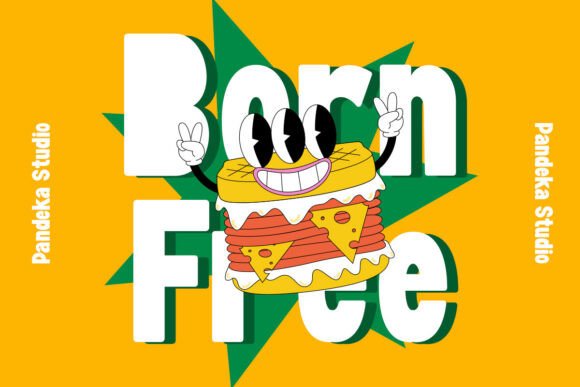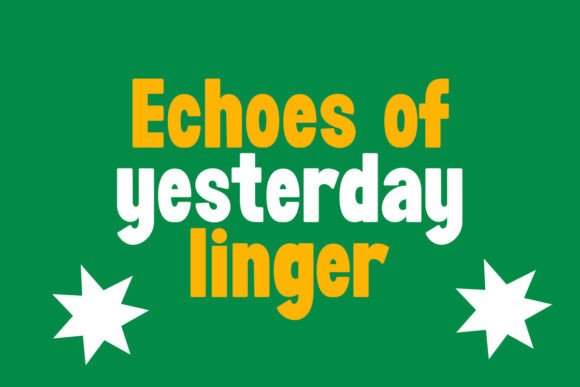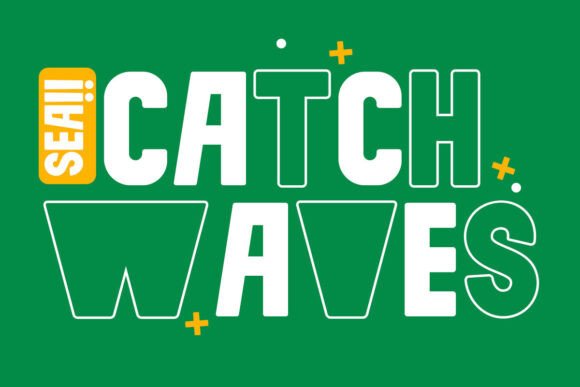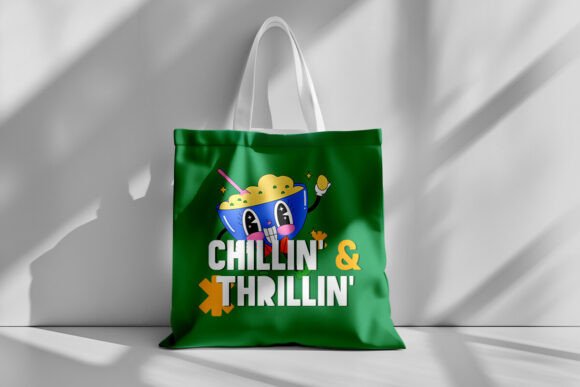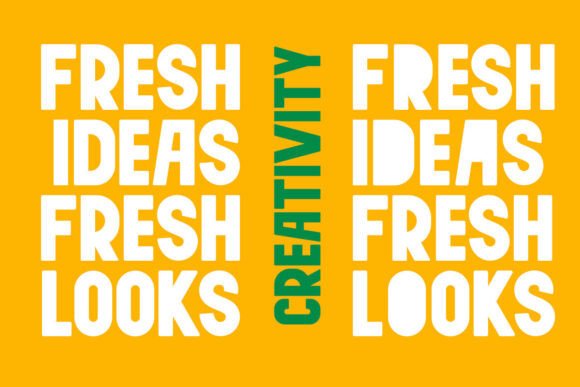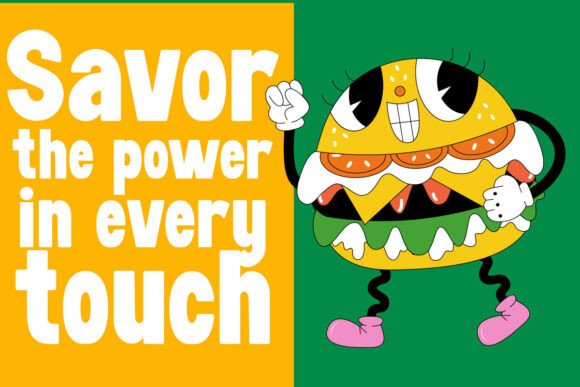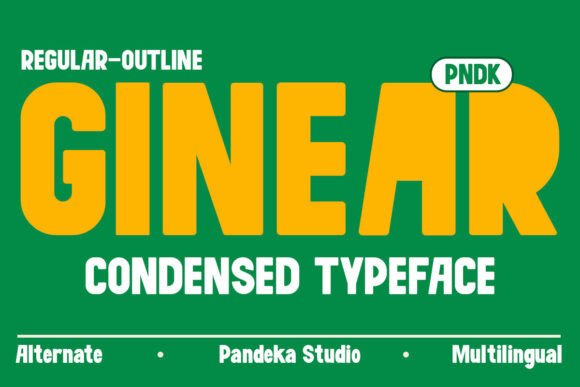
Introducing Ginear Font: The Playful and Condensed Sans-Serif Typeface You Need
Are you tired of using the same old fonts in your design projects? Look no further than Ginear, a fresh and exciting sans-serif typeface that’s sure to grab attention and bring life to your creations. With its unique blend of compact structure and cheerful vibe, Ginear is the perfect addition to any designer’s toolkit.
What Makes Ginear Special?
Ginear is a playful and condensed sans-serif typeface that’s designed to make a statement. Its 2 styles, Regular and Outline, offer a versatile range of options for designers looking to add some personality to their projects. The compact structure of Ginear makes it perfect for use in headlines, titles, and other display text, while its unique shapes and lines give it a cheerful and vibrant vibe that’s sure to engage audiences.
The Benefits of Using Ginear
So why choose Ginear for your design projects? Here are just a few benefits of using this exciting new typeface:
- Attention-grabbing: Ginear’s bold and condensed structure makes it perfect for use in headlines and titles that need to grab attention.
- Versatile: With 2 styles to choose from, Ginear can be used in a wide range of design projects, from digital media to print materials.
- Unique: Ginear’s cheerful and vibrant vibe sets it apart from other sans-serif typefaces, making it perfect for designers looking to add some personality to their work.
How to Use Ginear in Your Design Projects
Using Ginear in your design projects is easy. Here are a few tips to get you started:
- Pair it with a serif font: Ginear’s sans-serif structure makes it a great match for serif fonts, which can add a touch of elegance and sophistication to your designs.
- Use it in headlines and titles: Ginear’s bold and condensed structure makes it perfect for use in headlines and titles, where it can help grab attention and draw the eye.
- Experiment with colors: Ginear’s cheerful and vibrant vibe makes it a great match for bright and bold colors, which can help add some personality to your designs.
The Design Process Behind Ginear
So how did Ginear come to be? The design process behind this exciting new typeface involved a careful consideration of the needs of modern designers. The goal was to create a font that was both functional and fun, with a unique personality that would set it apart from other sans-serif typefaces.
The result is a font that’s both highly legible and highly engaging, with a range of uses that make it perfect for designers looking to add some excitement to their work.
In conclusion, Ginear is a playful and condensed sans-serif typeface that’s sure to bring life and energy to your design projects. With its 2 styles, Regular and Outline, and its unique blend of compact structure and cheerful vibe, Ginear is the perfect addition to any designer’s toolkit.
Whether you’re a seasoned designer or just starting out, Ginear is a font that’s sure to inspire and engage. So why not give it a try and see the difference it can make in your designs?
Key Features of Ginear Font
- 2 styles: Regular and Outline
- Compact structure: Perfect for use in headlines and titles
- Cheerful and vibrant vibe: Adds personality and energy to your designs
- Highly legible: Perfect for use in a wide range of design projects